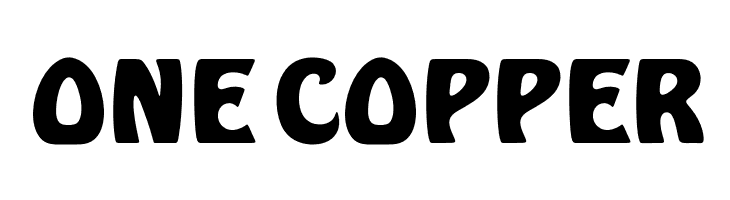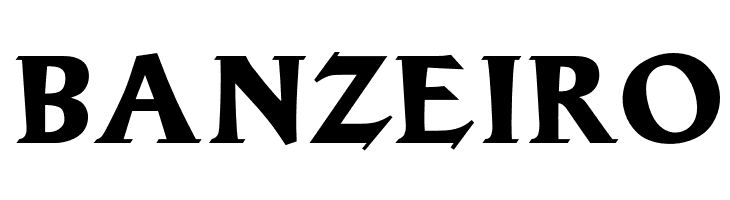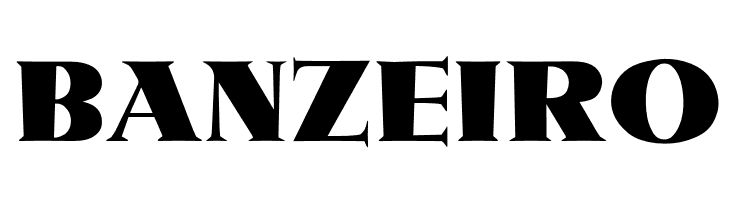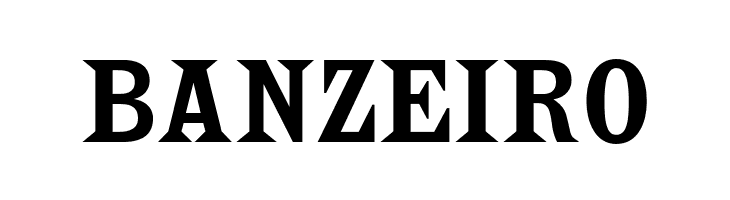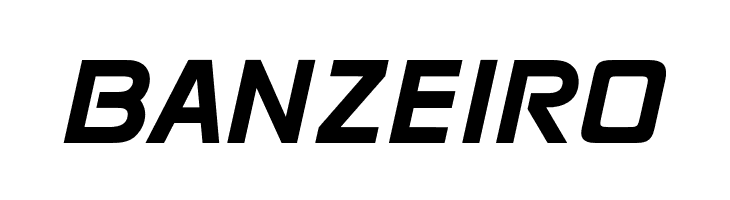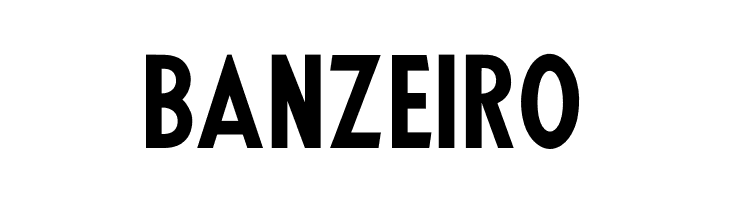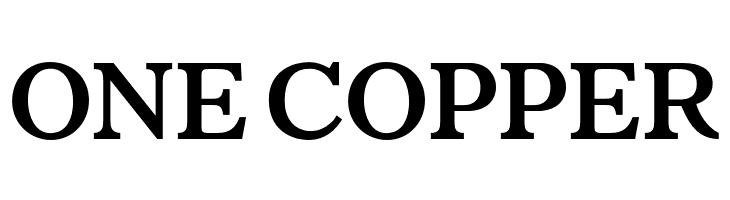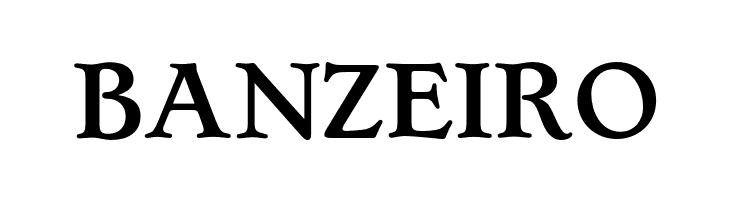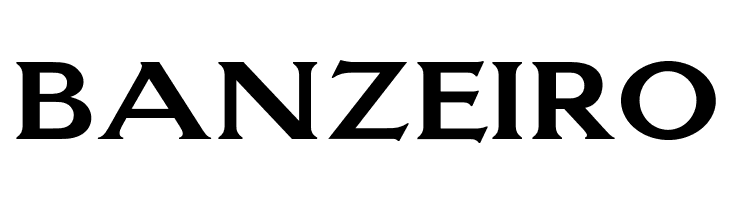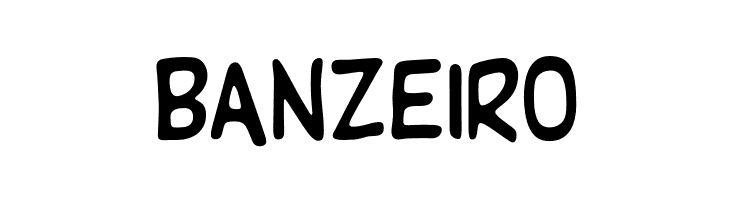
A bold, serif typeface with strong, thick strokes and a classic design.
A bold, playful font with rounded strokes and a vintage-modern appeal.
A bold, classic serif font with elegant and traditional Italian influences.
A bold, condensed sans-serif font with high contrast and strong visual impact.
A bold, playful font with rounded, cartoonish characters.
A bold, high-contrast serif font with strong, thick strokes.
A bold serif font with a classic and reliable appearance.
A bold, classic serif font with strong, elegant characters.
A bold serif typeface with strong, angular serifs and a classic, authoritative style.
A bold, condensed typeface with strong, legible characters ideal for impactful headlines.
A bold, dynamic serif font with sharp angles and high contrast.
A bold, authoritative font with strong strokes and elegant curvature.
A classic serif font with bold, elegant serifs and a timeless appearance.
A bold, classic serif font with strong serifs and medium contrast.
A bold, high-contrast serif font with sharp, angular serifs and a dramatic style.
A bold, modern font with a slight italic slant and geometric design.
A bold, modular serif font with a tall, condensed structure and pronounced serifs.
A bold, geometric font with a futuristic and industrial aesthetic.
A bold, outlined font with a modern and impactful style.
A bold serif font with strong strokes and a classic, authoritative style.
A bold, italicized font with strong strokes and a dynamic slant.
A bold, modern sans-serif font with clean lines and a strong presence.
A bold serif typeface with sharp serifs and a classic, authoritative style.
A bold, modern typeface with strong, thick strokes and a clean, contemporary style.
A bold serif font with strong strokes and high contrast, perfect for impactful designs.
A bold, italic serif font with strong, dynamic strokes and pronounced serifs.
A bold, rounded font with a modern and playful style.
A bold, modern font with clean lines and a professional appearance.
A bold, condensed typeface with a modern, impactful style.
A bold, serif typeface with strong strokes and pronounced serifs, ideal for impactful designs.